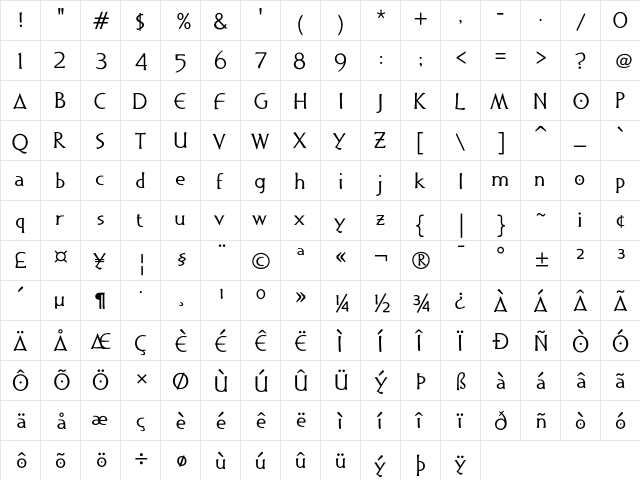
Mediterano Regular
Design Context for Mediterano Typeface
Mediterano is a composed and adaptable typeface that performs quietly and consistently across a wide range of design contexts.
Pro Tip: Pair Mediterano with a font of contrasting weight or personality to build a more expressive typographic hierarchy.